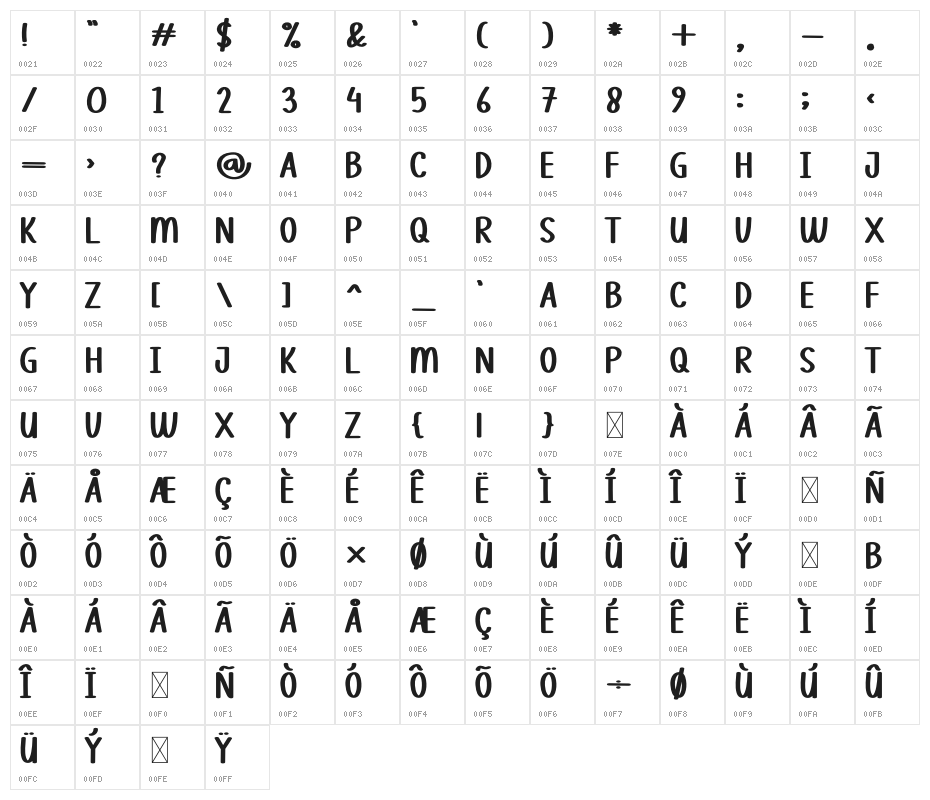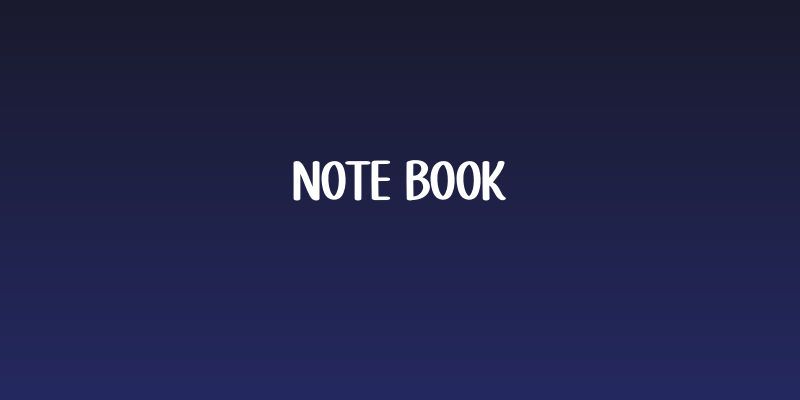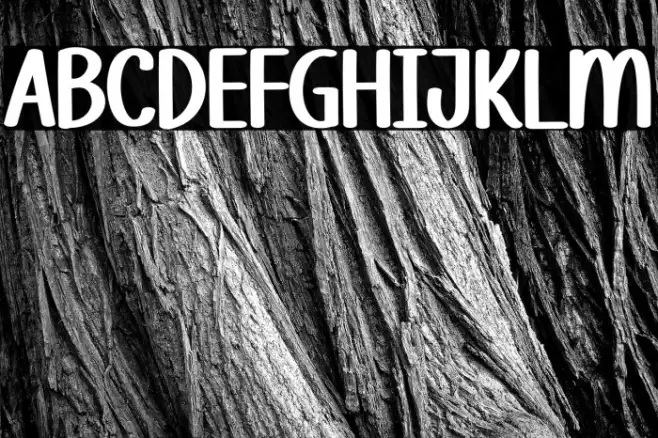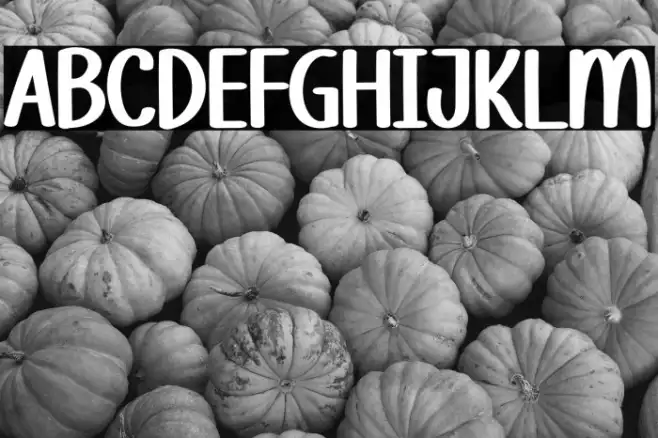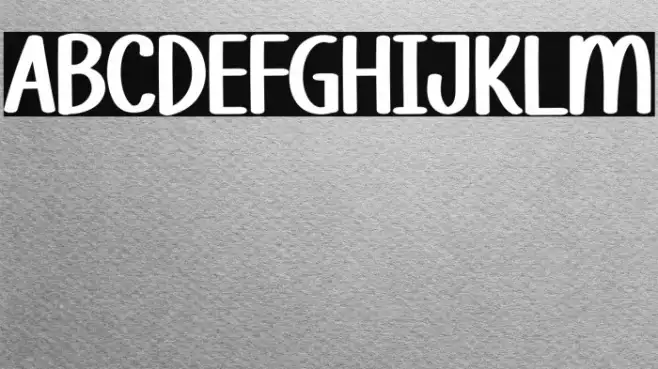
NOTE BOOK Font
NOTE BOOK Description
This font features a playful and rounded style, characterized by its bold and smooth curves. The letters are evenly spaced, providing a clean and approachable appearance. The uppercase and lowercase letters maintain a consistent style, with a slight variation in stroke width that adds a touch of dynamism. The numerals are clear and legible, complementing the overall design. Special characters are well-integrated, maintaining the font's cohesive look. This font's friendly and informal vibe makes it suitable for a variety of creative projects.
| Proposed Projects | Ideal for children's books, playful branding, casual invitations, and creative posters. |